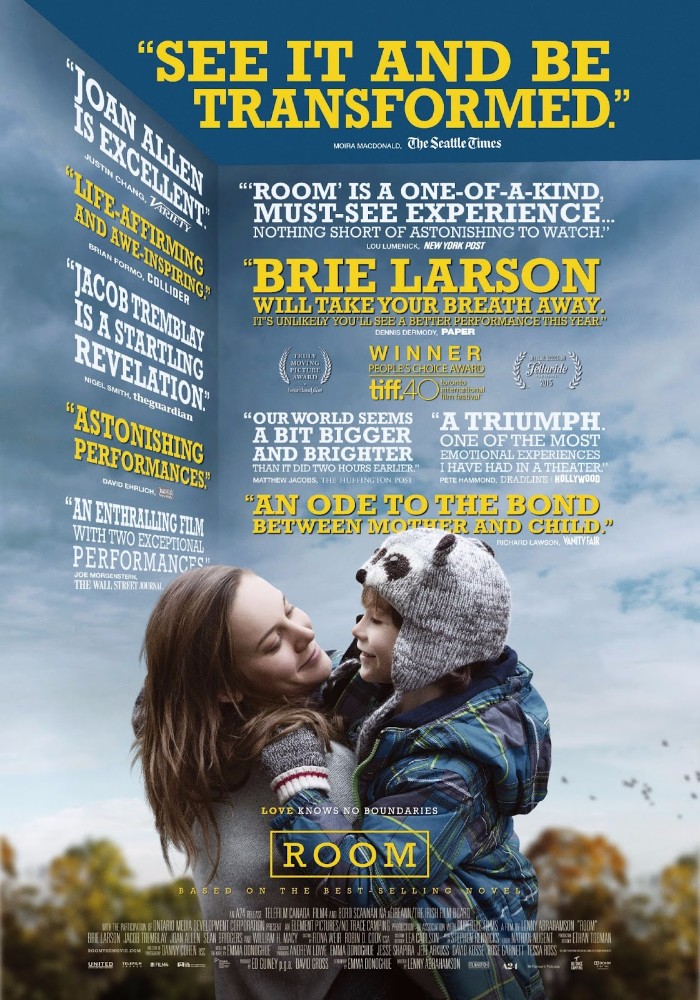
Room (2015 film) Font
DramaRoom is a 2015 film that follows the story of a young woman and her son who are held captive in a small room and their journey to escape. It is based on the novel of the same name by Emma Donoghue.
The film title on the poster is styled using a font similar to Rockwell Regular, a geometric slab serif designed by Monotype Corporation in 1934. To replicate this look, a free alternative font is Rokkitt, created by Vernon Adams in 2014. Rokkitt is available for free download in the Fonts Used Section.